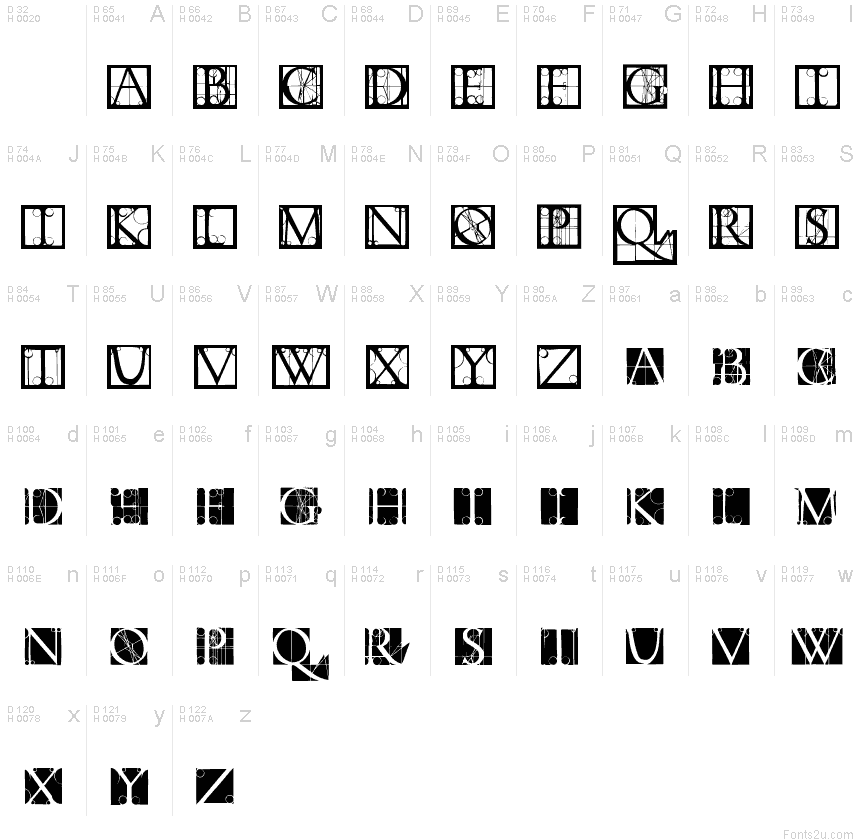
TornielloInitials
Torniello Initials, vectorized by Manfred Klein from Francesco Torniello's 1517 letters, is a free Renaissance initials font with the look of constructed majuscules drawn inside squares, circles, and guiding lines. The letters feel like pages from an early lettering manual - stately Roman forms overlaid with visible geometry, where the measured scaffolding is part of the style rather than hidden behind it.
This free font suits book covers, museum graphics, historical branding, title cards, and chapter openers where a single letter or short line can carry that scholarly, classical mood. It also works for monograms and drop caps, because the built-in circles and diagonals give the initials a diagrammatic presence that reads as both decorative and instructive.